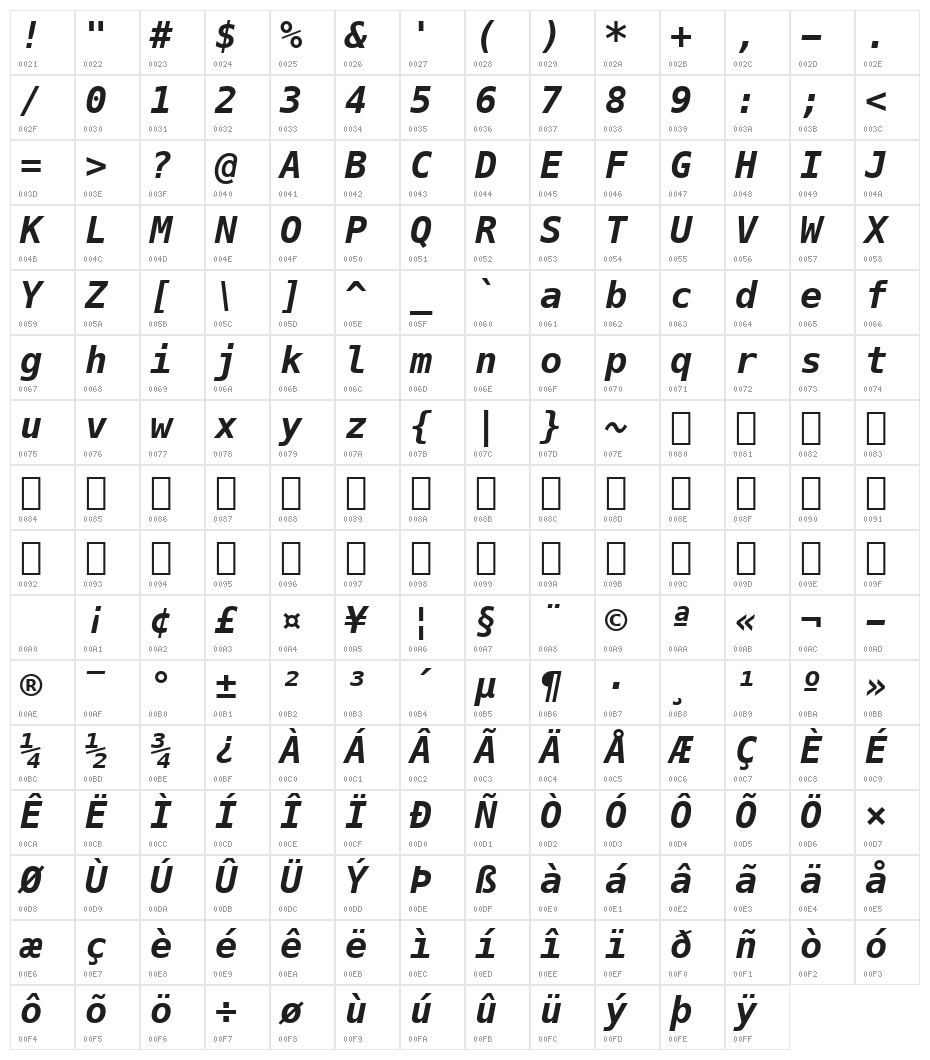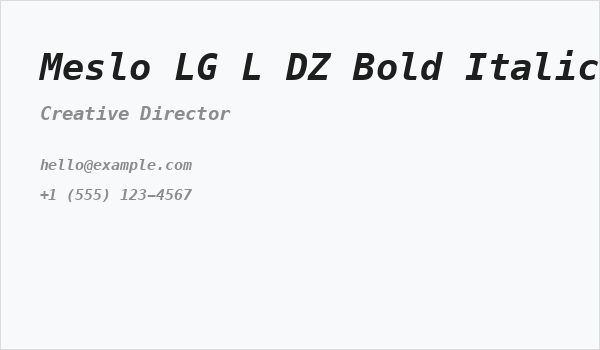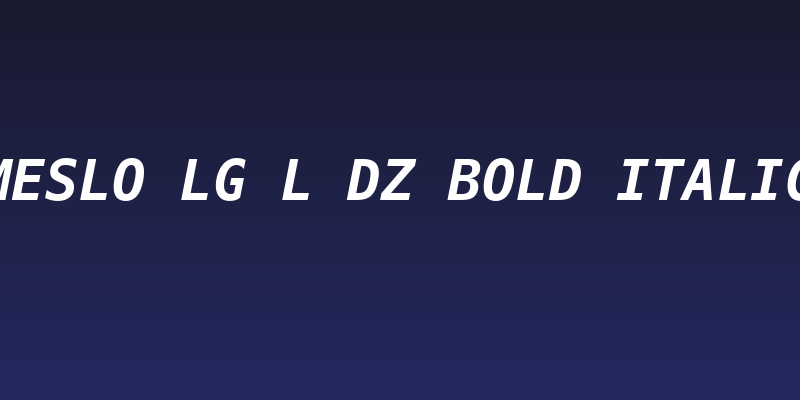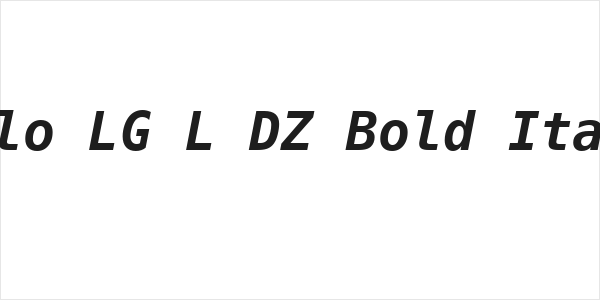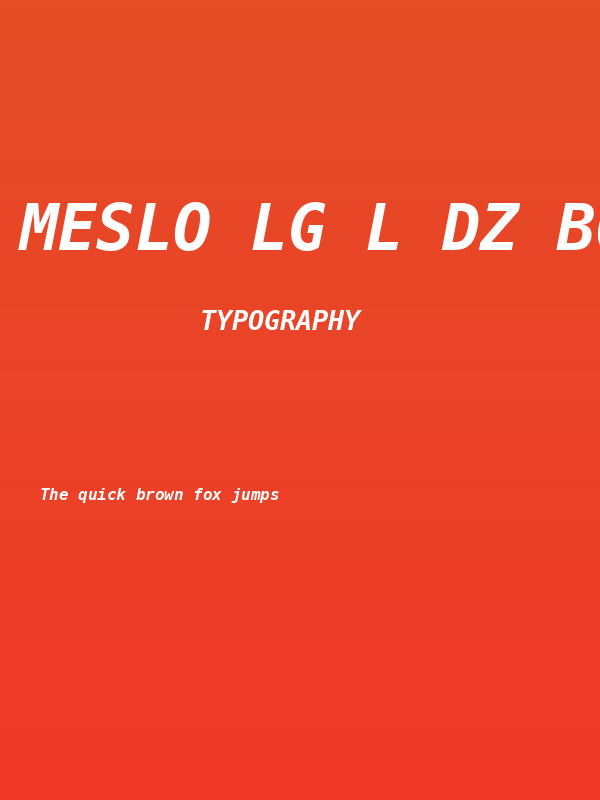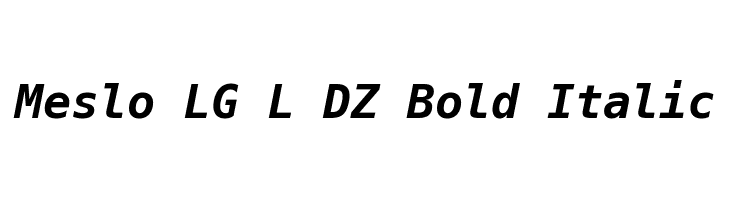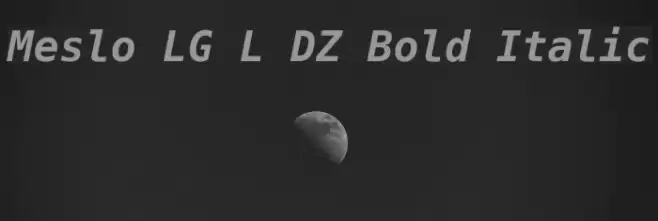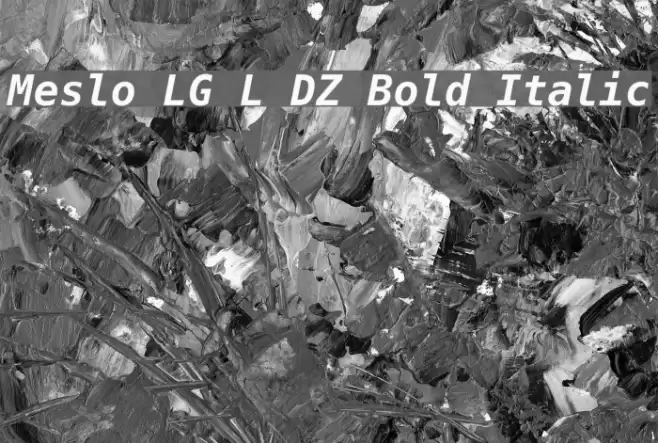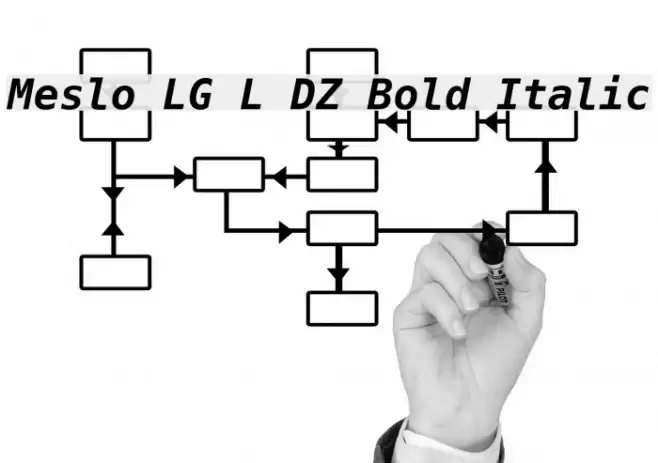
Meslo LG L DZ Bold Italic Font
Meslo LG L DZ Bold Italic Description
This font exhibits a modern and clean design with a monospaced structure, making it ideal for coding and technical documentation. The characters are evenly spaced, providing a uniform appearance that enhances readability. The bold and italic styling adds emphasis while maintaining clarity. Its geometric shapes and consistent stroke widths contribute to a balanced and professional look. The font's slanted style gives it a dynamic feel, suitable for both digital and print media. The numerals and special characters are distinct and clear, ensuring they stand out in any context.
| Use Case | Headlines, Body text, Logos, Coding |
| Proposed Projects | Perfect for coding environments, technical documentation, and any project requiring a clean, monospaced font. |